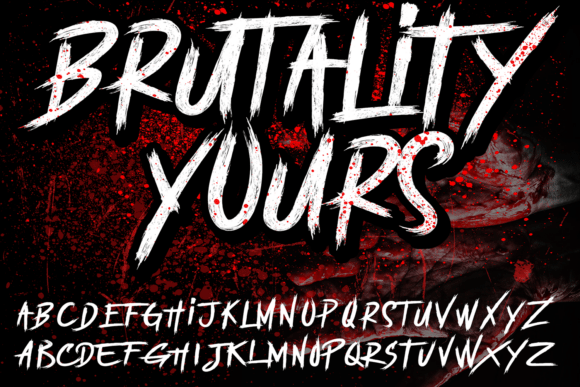
Unleash the Horror: Introducing Brutality Yours Font
In the world of typography, fonts play a crucial role in conveying the tone and personality of a brand, product, or artwork. For designers and crafters seeking to add an edgy touch to their creations, Brutality Yours Font is a game-changer. This horror theme brush typeface is designed to make a statement, with rugged edges and expressive strokes that exude a sense of raw power and movement.
The Perfect Font for Edgy Branding and Designs
Brutality Yours Font is specifically crafted for designers who want to push the boundaries of conventional typography. Its hand-drawn texture gives your message a sense of authenticity and grittiness, making it perfect for:
- Edgy branding: Create a bold and daring identity for your brand that sets you apart from the competition.
- Grunge posters: Add a touch of rebelliousness to your posters and flyers with a font that’s reminiscent of the grunge era.
- Music festival and cover albums: Give your music festival posters or album covers a bold, eye-catching look that screams energy and excitement.
- Horror titles: Create spine-tingling horror movie titles or book covers that will leave your audience shivering.
- Street-style designs: Add an urban, edgy vibe to your designs with a font that’s perfect for streetwear branding, graffiti, or stencil art.
What Makes Brutality Yours Font Stand Out?
Brutality Yours Font boasts a range of features that make it an indispensable addition to any designer’s toolkit:
- Uppercase and lowercase letters: The font includes both uppercase and lowercase letters, giving you the flexibility to create dynamic and expressive text.
- Hand-drawn texture: The font’s hand-drawn texture adds a touch of organic, human feel to your designs, making them more relatable and engaging.
- Rugged edges and expressive strokes: The font’s rugged edges and expressive strokes create a sense of movement and energy, perfect for grabbing attention.
Tips for Using Brutality Yours Font Effectively
To get the most out of Brutality Yours Font, here are some expert tips:
- Pair with contrasting fonts: Combine Brutality Yours Font with cleaner, sans-serif fonts to create visual interest and contrast.
- Experiment with colors: Try pairing the font with bold, bright colors to amplify its edgy, attention-grabbing effect.
- Use it sparingly: While Brutality Yours Font is perfect for headlines and titles, use it sparingly to avoid overwhelming your design.
Brutality Yours Font is a powerful tool for designers and crafters seeking to add an edgy, horror-themed touch to their creations. With its rugged edges, expressive strokes, and hand-drawn texture, this font is perfect for a range of applications, from edgy branding to horror titles. By incorporating Brutality Yours Font into your design toolkit, you’ll be able to create bold, attention-grabbing designs that leave a lasting impression.